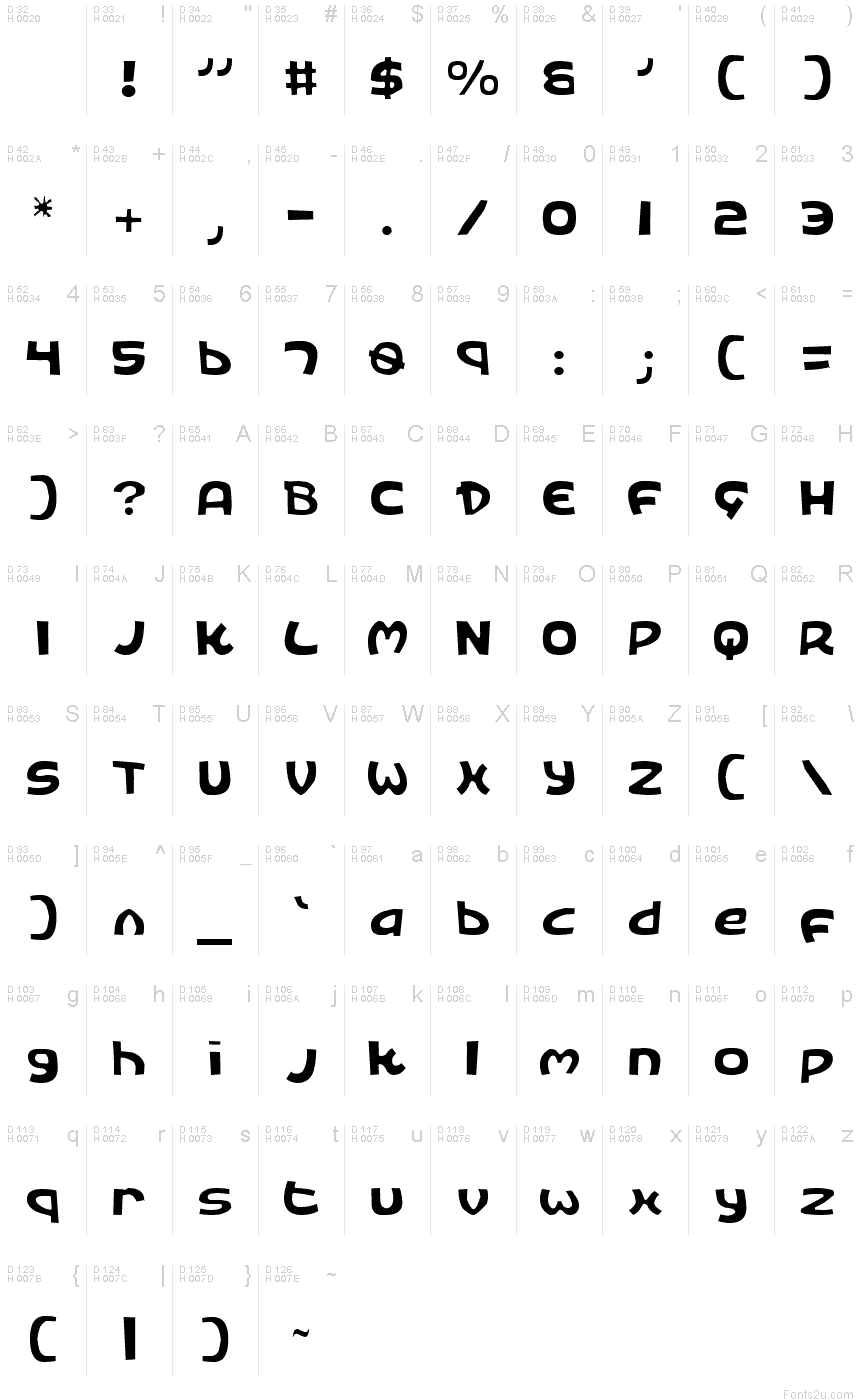
King's Ransom Light
King's Ransom Light font by Iconian Fonts is a free comic display typeface with a loose, bouncy energy that feels hand-cut and slightly mischievous. Each letter tilts and wobbles just enough to look human and spontaneous, like chunky ink shapes dropped onto the page. The wide, soft curves and uneven rhythm give headlines a loud, playful shout without ever feeling harsh or stiff.
Using King's Ransom Light, you can amp up kids’ book covers, birthday invitations, comic titles, game menus, stickers, or bold social graphics with a fun, offbeat voice. This free font shines at big sizes where its irregular silhouettes and roomy spacing can really show. Pair it with a clean geometric sans for body text to keep layouts readable while letting King’s Ransom Light handle all the noisy, character-packed moments.